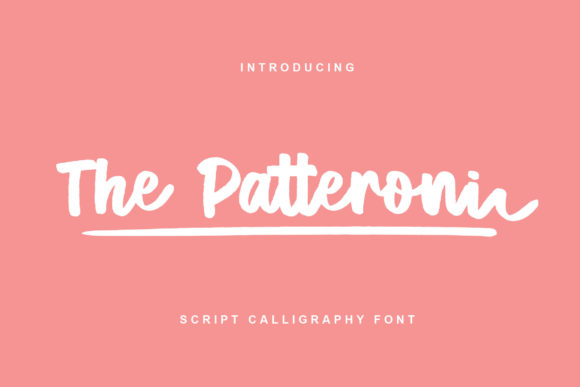
The Patteroni Script: A Friendly Handwritten Font for Modern Creators
There's a certain warmth that only a handwritten style can bring to a project. It feels personal, immediate, and human. In a digital world full of sharp, geometric typefaces, a well-crafted script font can be the secret ingredient that makes a design feel approachable and authentic. The Patteroni Script is a premium font designed to do exactly that. It’s a simple, clean, and friendly handwritten font that aims to be an incredibly versatile asset in any designer's toolkit.
At its core, The Patteroni Script is about clarity and character. Unlike overly ornate or complex script fonts that can be difficult to read, this script font prioritizes legibility. The letterforms are consistent, with a natural flow that mimics the rhythm of actual handwriting. You’ll notice smooth connections between letters and a balanced x-height, which helps maintain readability even at smaller sizes. It carries a modern, casual personality—confident without being loud, and stylish without sacrificing function. This balance is what makes it a strong contender for a wide range of applications, from logo design to social media posts.
Where This Handwritten Font Truly Shines
The real value of a creative font like The Patteroni Script is measured by its utility. Where does it work best? Its friendly demeanor makes it a natural fit for projects that need a human touch. Think of a local bakery’s branding, a lifestyle blog header, or the packaging for artisanal goods. In these contexts, the font helps build an immediate emotional connection with the audience, reinforcing a brand identity that feels genuine and trustworthy.
For editorial design, such as magazine pull quotes, chapter titles, or feature article headers, The Patteroni Script can break up the monotony of body text set in a standard serif font or sans serif font. It adds a layer of visual interest and guides the reader’s eye. In the digital space, it’s equally effective. Use it for call-to-action buttons on a website, standout text in an email newsletter, or as the primary typeface for a compelling Instagram story. Its clean lines ensure it renders well on screens of all resolutions, a crucial consideration in modern web design.
Entrepreneurs and small business owners will find it particularly useful for packaging design and marketing collateral. Imagine a thank-you note included with an online order, a discount voucher, or the label for a new product. The Patteroni Script injects personality into these touchpoints, helping to create a memorable brand identity that stands out in a crowded market. For crafters and hobbyists, it’s a fantastic tool for creating personalized items, from wedding invitations to custom stationery.
Integrating The Patteroni Script into Your Design Workflow
Choosing a font is a strategic decision, not just an aesthetic one. Before selecting The Patteroni Script for a project, consider the overall tone you need to establish. Does the project call for a casual, approachable, and modern feel? If the answer is yes, it’s likely a strong candidate. However, for projects requiring a formal, authoritative, or highly technical tone, a more traditional typeface might be a better primary choice.
A key skill in modern typography is creating effective font pairing. The Patteroni Script works beautifully as a display or accent font when paired with a simpler, more neutral body font. For instance, pairing it with a clean sans serif like Montserrat or a classic serif like Lora creates a dynamic visual hierarchy. The script draws attention for headlines or key phrases, while the paired font ensures the body copy remains easy to read. Always test your pairings together in context—view them on a mockup of the final product, whether it’s a website layout, a business card, or a product label.
When you acquire a commercial font like The Patteroni Script, take a moment to review the full package. Look for any included styles, such as alternate characters, ligatures, or additional weights. These extras can provide valuable design flexibility, allowing you to customize the look for different applications. Also, verify the licensing details to ensure they cover your intended use, whether for a single client project, multiple commercial products, or digital advertising.
Ultimately, the goal of any design asset is to serve the project’s objective. The Patteroni Script is a tool for adding warmth, personality, and a human element. By understanding its strengths and applying it thoughtfully, you can leverage this friendly handwritten font to create more engaging, recognizable, and professional work that truly resonates with your audience.